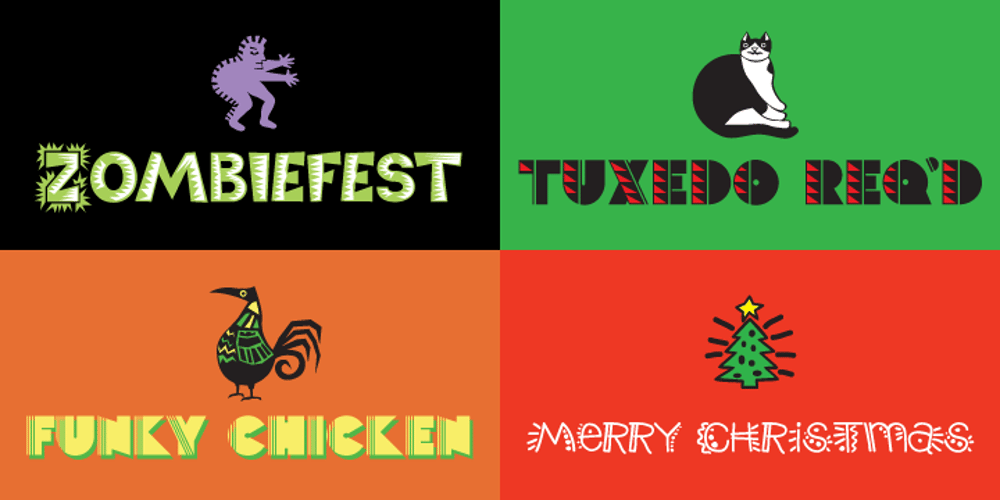
Poptics Delux Font Family was designed by Patricia Lillie and published by Patricia Lillie. Poptics Delux contains 14 styles and family package options. Originally released as Mac Shareware in 1993, the Poptics family of fonts proved popular enough that Windows shareware versions soon followed. The early versions each contained 52 picture characters and an extremely limited set of alphanumeric and punctuation characters. Poptics Delux, the new Open Type version (no longer shareware), has a complete character set (although still all caps), improved spacing, a bit of general cleaning up, and something extra for Open Type aware applications. The original picture characters are available by choosing Ornaments in Open Type aware applications or by installing the included Pics fonts for use in non Open Type aware applications—because you never know when you might need a fountain pen (Poptics Delux One), a matryoshka (Poptics Delux Two) or a pig in sunglasses (Poptics Delux Three).